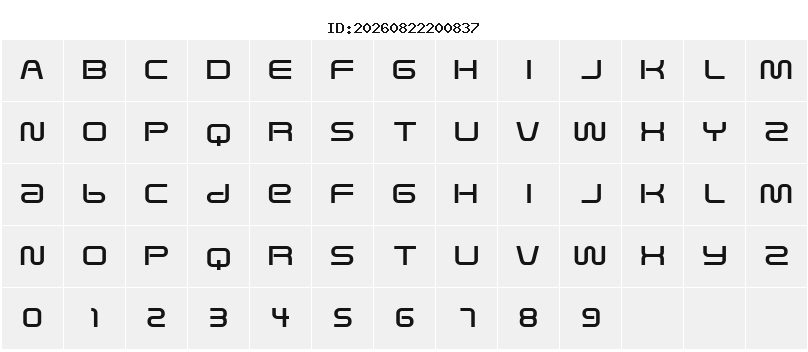
• Font Name: Saved By Zero
About Saved By Zero.ttf
Saved By Zero.ttf is a modern, elegant sans-serif font designed for ultimate readability and visual harmony. Perfect for branding, headlines, web design, and print materials.